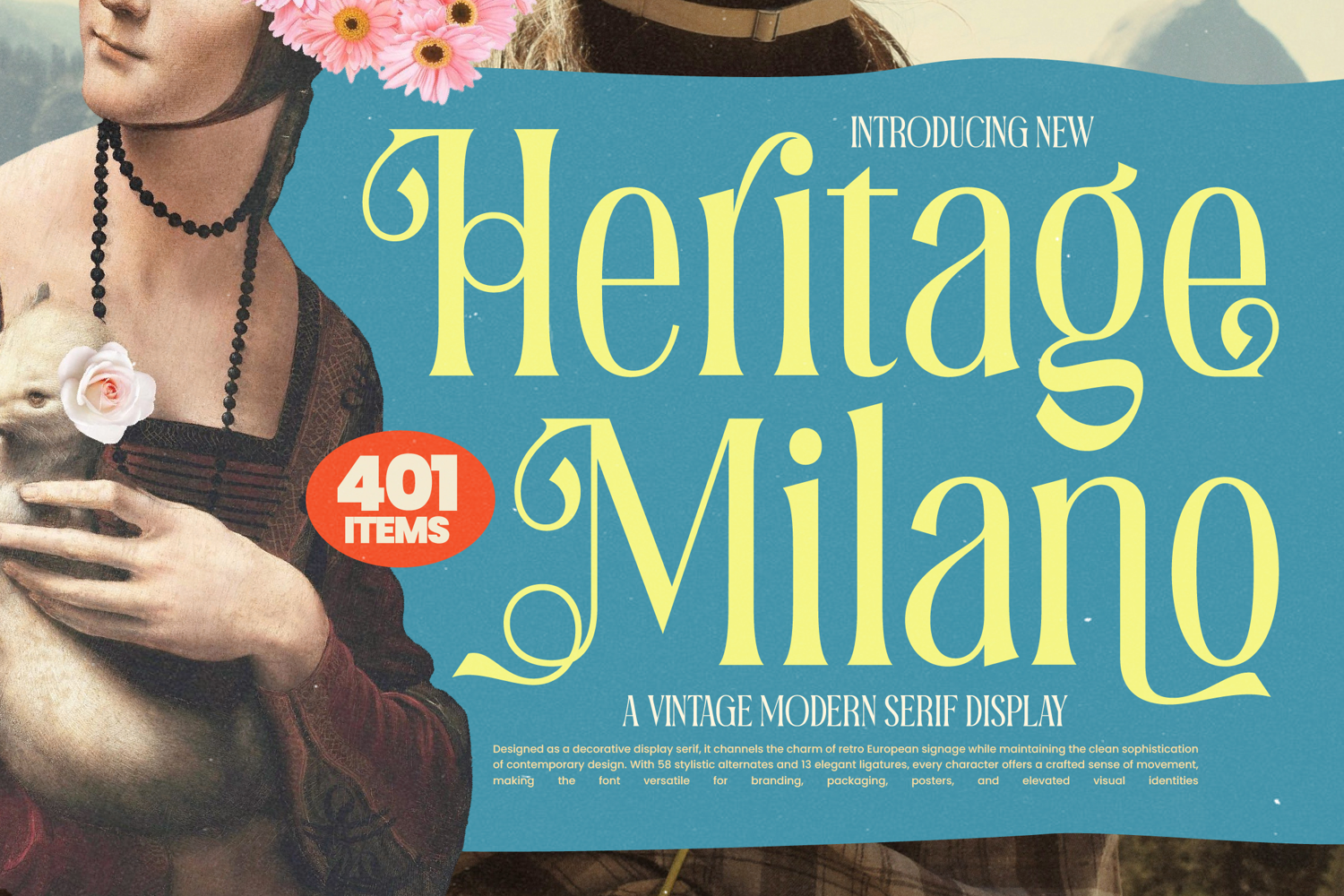
Heritage Milano - Vintage Modern Serif Display Font
Inject immediate elegance into your design projects. Introducing Heritage Milano - Vintage Modern Serif Display, a typeface that masterfully channels the classic romance of retro European signage while maintaining uncompromising modern sophistication. Its high-contrast letterforms feature dramatically weighted strokes and subtle, captivating swashes, ensuring that every headline commands attention. This font is the definition of timeless elegance, built for impact and refined storytelling in any premium context.
Unlock unparalleled creative flexibility. Designed with the professional typographer in mind, Heritage Milano - Vintage Modern Serif Display comes packed with a comprehensive set of stylistic alternates and elegant ligatures. These OpenType features empower designers to craft custom typography that truly stands out, transforming static text into dynamic visual art. Utilize the elaborate curves and flourishing elements to build unique visual identities that resonate with a sense of curated history and avant-garde style.
Achieve effortless global market integration. Expanding your brand’s reach requires a typeface capable of adapting to diverse linguistic landscapes. With its extensive multilingual support, Heritage Milano - Vintage Modern Serif Display adapts seamlessly across global markets, making it incredibly versatile for international projects. This commitment to broad language coverage ensures your sophisticated design ethos translates perfectly, whether you are targeting European capitals or wider global audiences.
Define your brand's presence with definitive style. The bold personality and detailed craftsmanship of Heritage Milano - Vintage Modern Serif Display make it the perfect selection for projects requiring a powerful statement display. It is ideally suited for luxury branding, high-end fashion magazines, specialized editorial design, and high-end packaging that demands attention. Invest in Heritage Milano - Vintage Modern Serif Display today to elevate your work beyond the standard, delivering unforgettable visual quality every time.